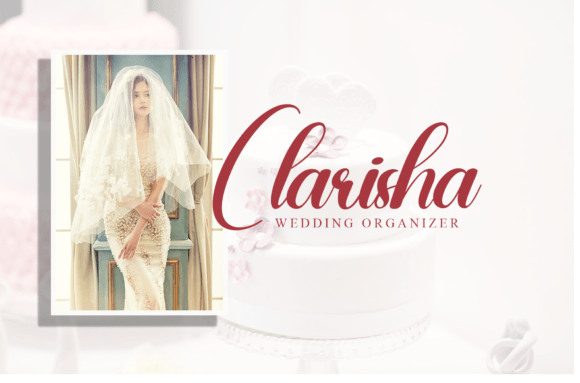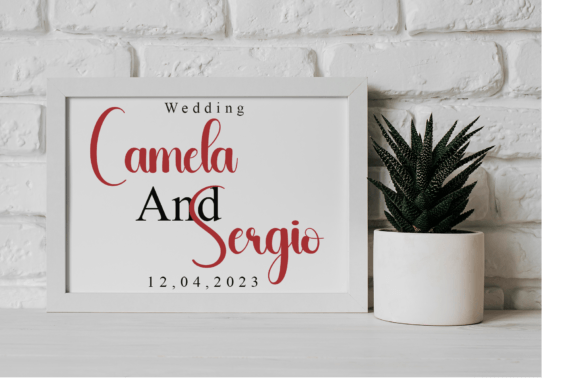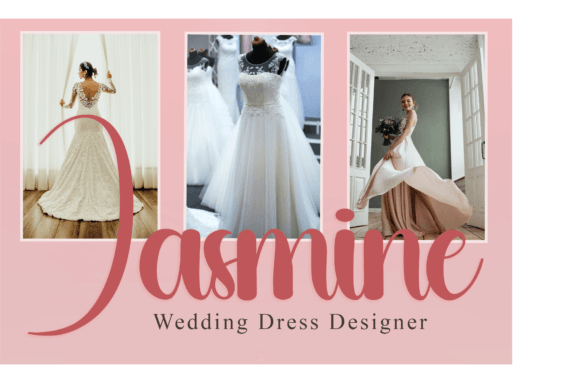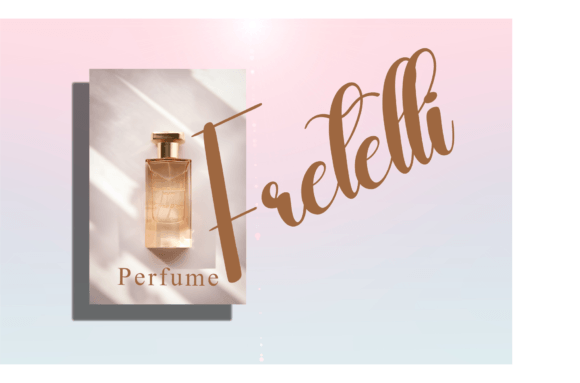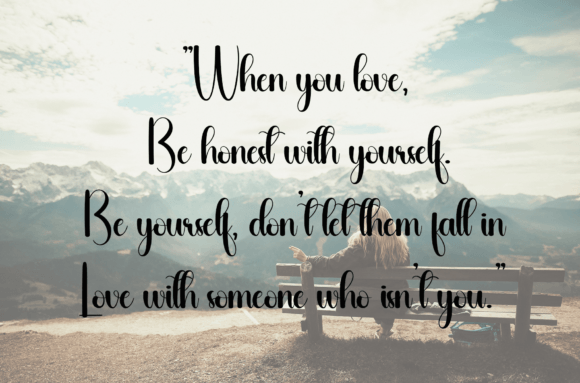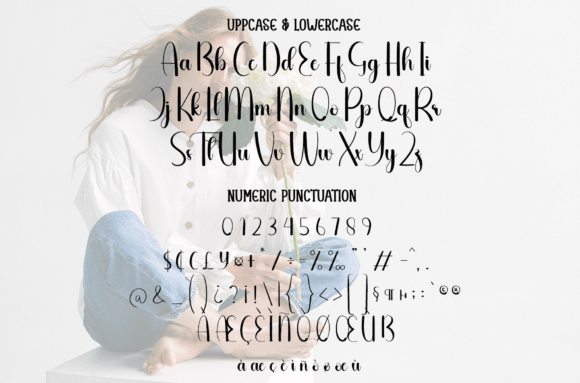
Introduction to Melamine Font
Do you remember the moment when you first discovered the perfect font for your creative project? The one that made all the elements come together in perfect harmony? For many designers, that moment is a treasure to behold. And for those who are looking for a sweet and friendly handwritten font, the Melamine Font is the answer.
With its fresh and neat design, the Melamine Font is ideal for writing wedding invitations, cards, or any other design that needs a fun touch. Its high-quality design makes it a valuable resource for designers who want to add a personal touch to their projects. And the best part? It’s available for free download, making it a great addition to any design resource collection.
Whether you’re working on a creative project or just need a design resource for your next idea, the Melamine Font is a great choice. Its transparent background and beautiful handwriting style make it perfect for a variety of uses, from digital designs to print materials. So why settle for an ordinary font when you can have a font that’s truly extraordinary?
Key Features of Melamine Font
- Unique, stylish font with a transparent background, ideal for use in digital designs.
- Designed at a high resolution (300 DPI) for crisp, clear text display in print and digital applications.
- Perfect for use in logo design, branding, and other creative projects where a distinctive, modern font is required.
Honest Review: Melamine Font
One of the standout features of Melamine Font is its high quality design. The font is crisp and clean, with a unique aesthetic that sets it apart from more generic fonts. The transparent background also makes it easy to use as a overlay or texture in your design.
Here are some things that work well with the Melamine Font:
- Transparent background for easy overlay or texture use
- Not a comprehensive font family (only includes a few styles)
- May not be suitable for large-scale text due to its unique aesthetic
Overall, I’m impressed with the Melamine Font. It’s a great choice for designers looking for a high-quality, unique font to add some personality to their creative projects. ✨
Tips for Getting the Most Out of Melamine Font
To get the most out of the Melamine Font, experiment with different font sizes, colors, and styles to create unique and eye-catching designs. You can also combine the Melamine Font with other design elements, such as images and graphics, to create visually appealing graphics.
The Melamine Font is ideal for a variety of creative projects, including graphic design, digital art, and typography. You can use it to create logos, business cards, brochures, and other marketing materials, as well as for personal projects, such as posters, flyers, and social media graphics.